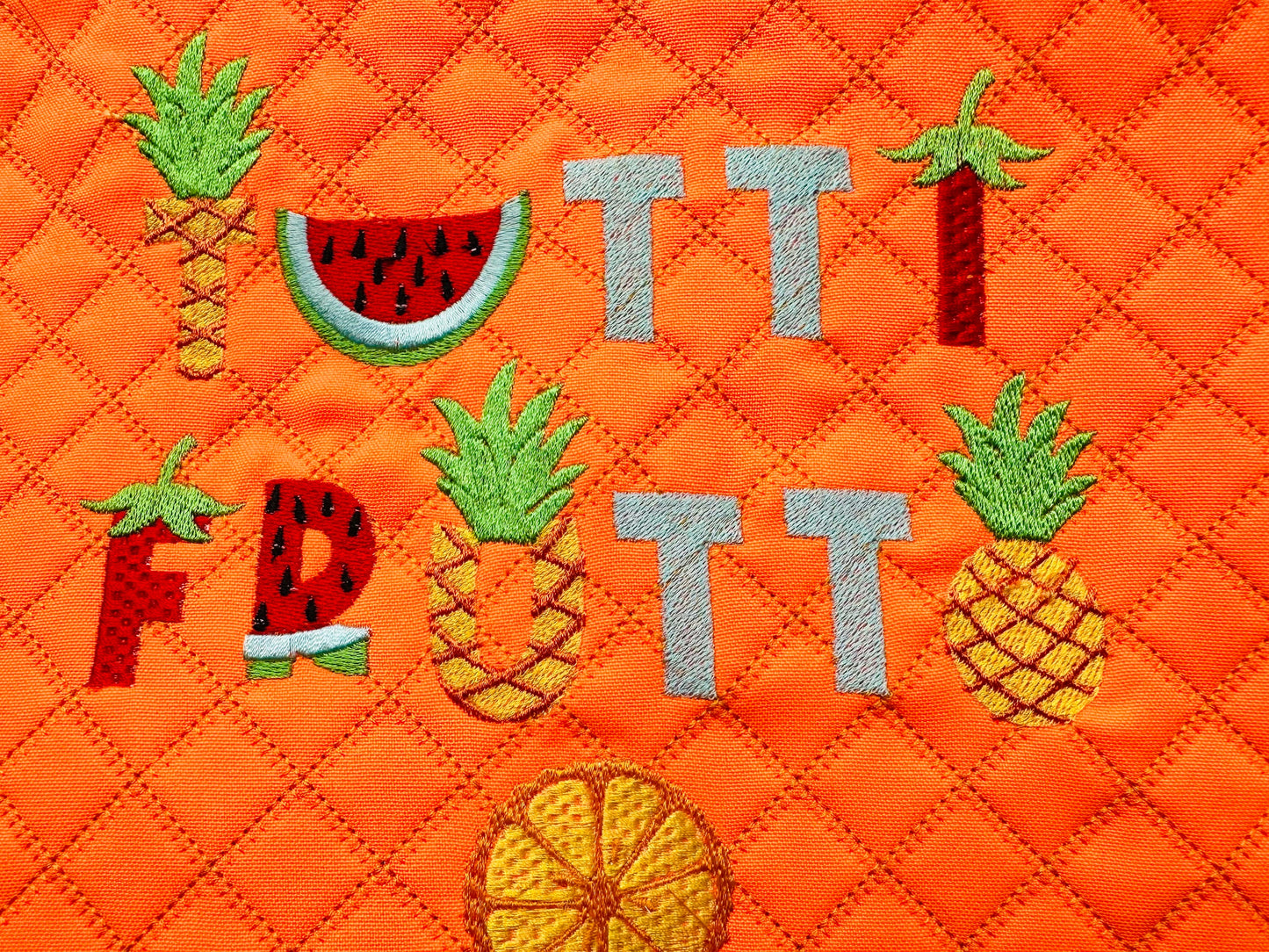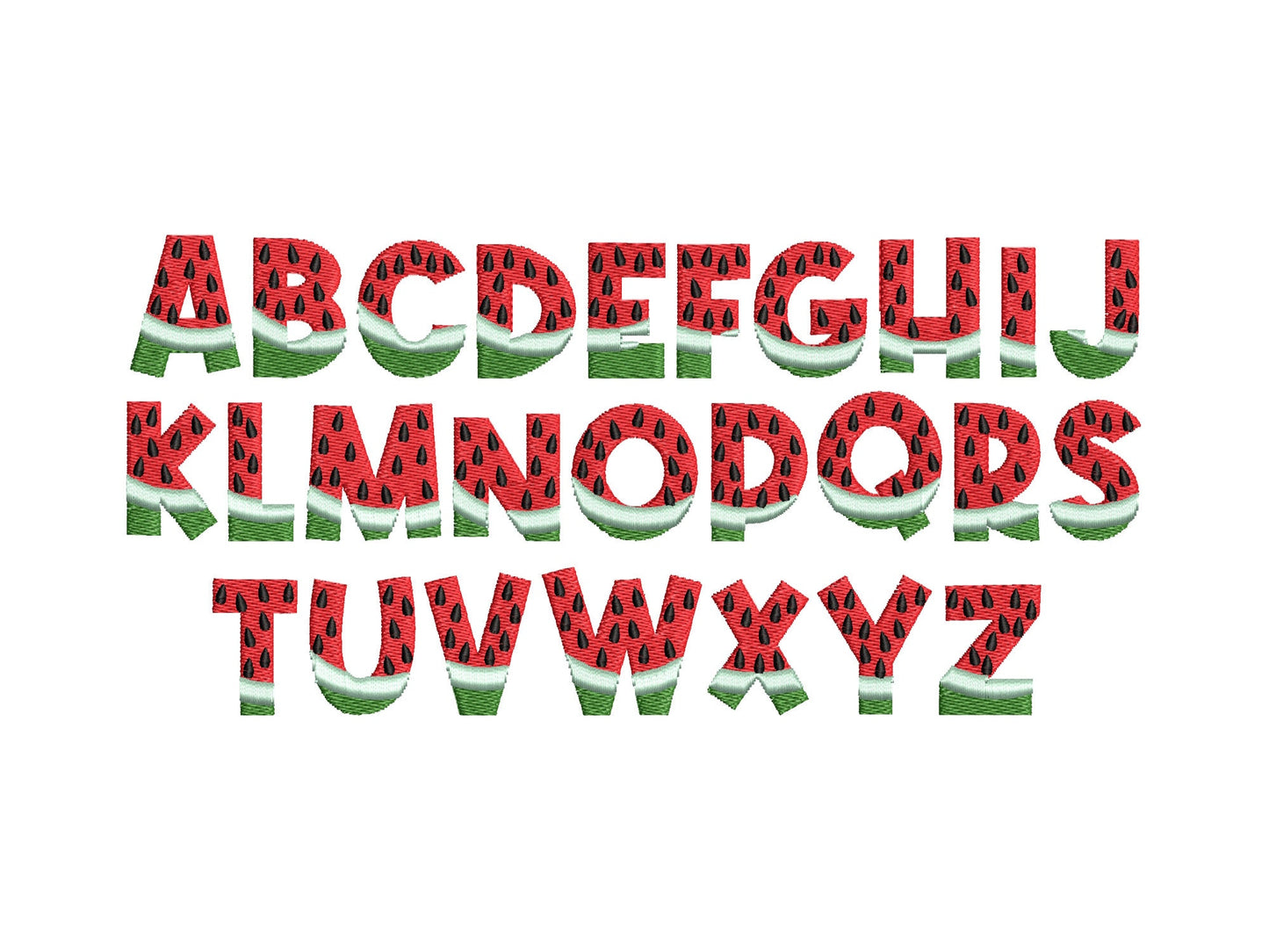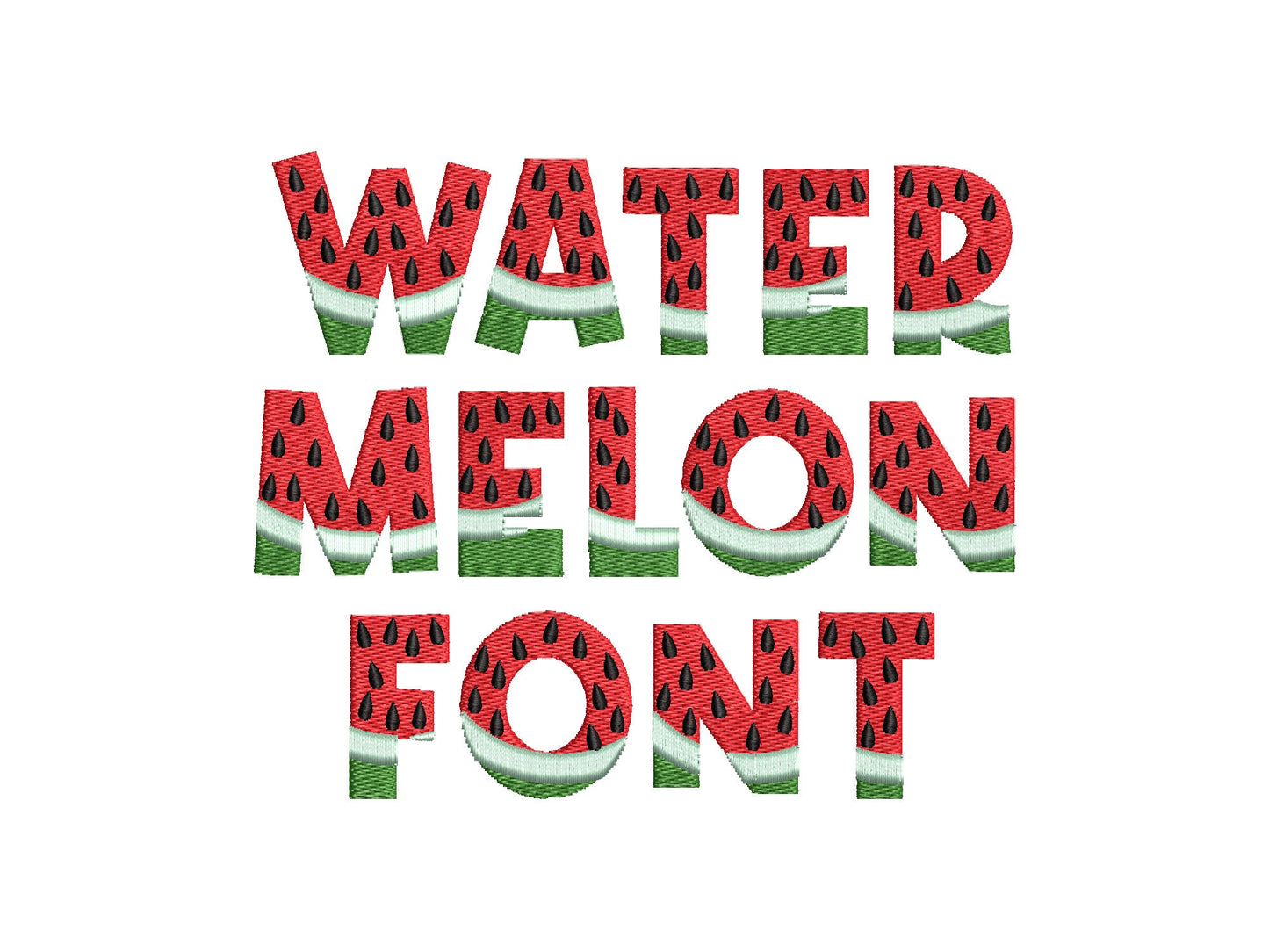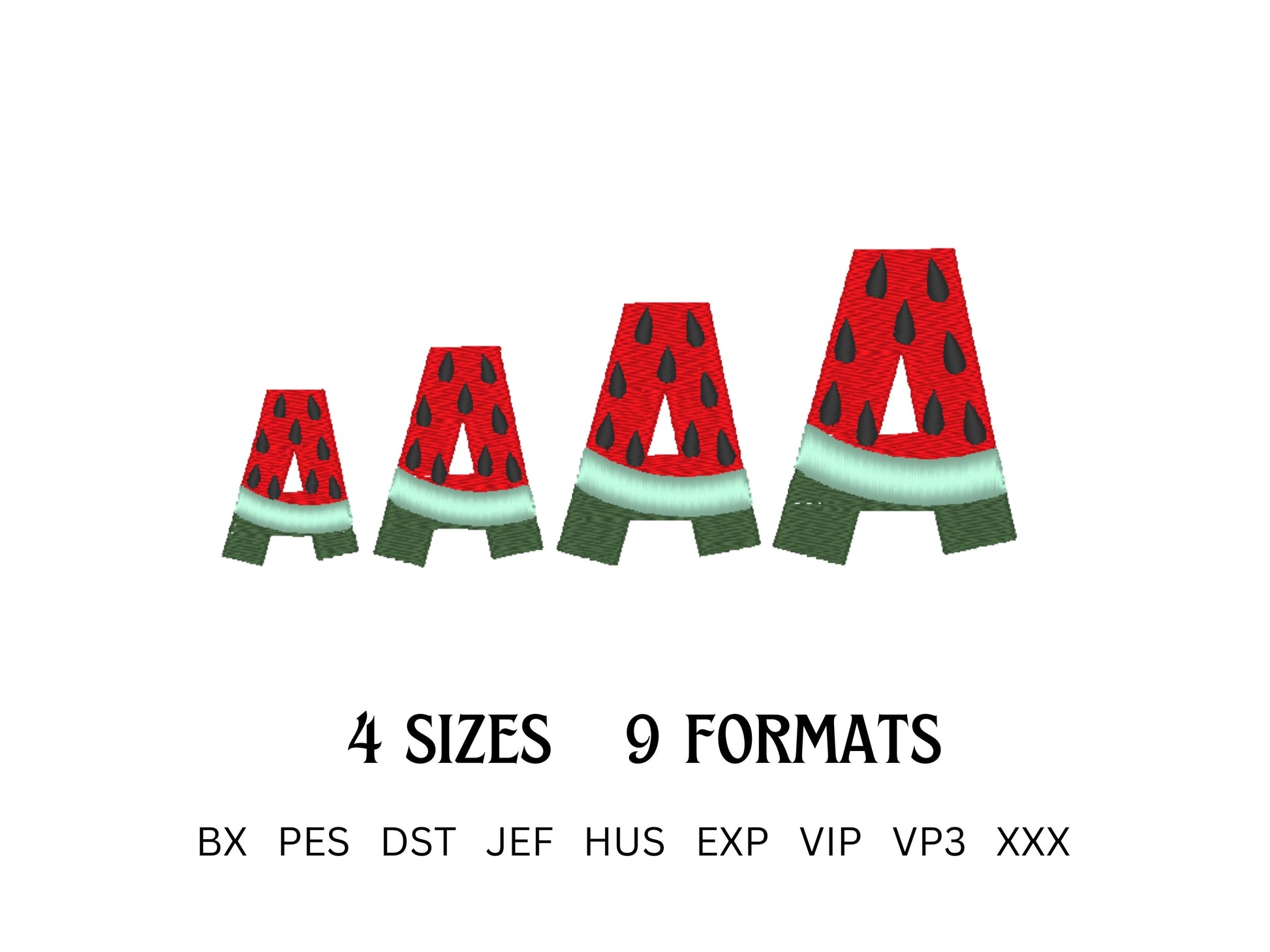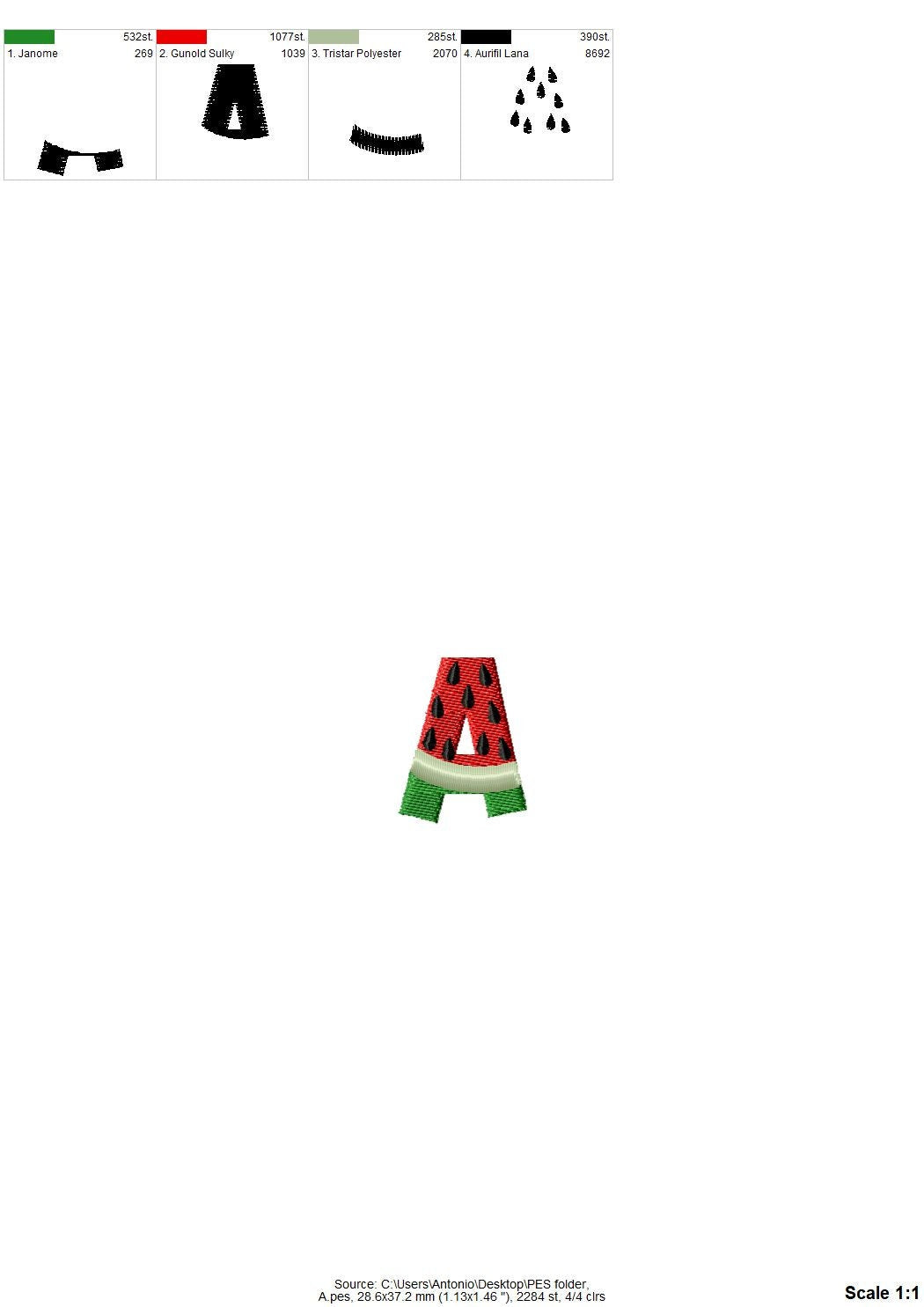
Or click to open the linkA patterned watermelon font in fill stitch. Fresh and summery for kids' shirts, picnic towels, bags and names.
Capital letters A to Z in four sizes: 1.2, 1.5, 1.8 and 2.1 inches.